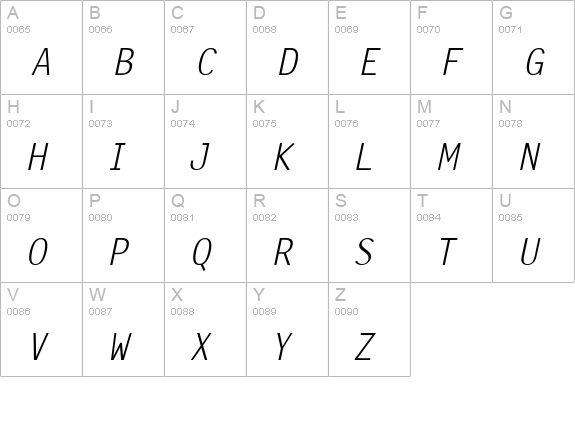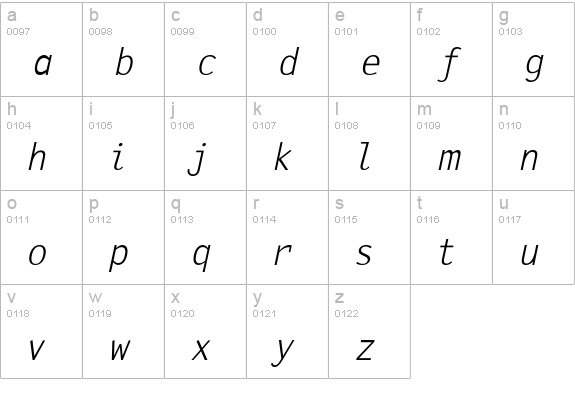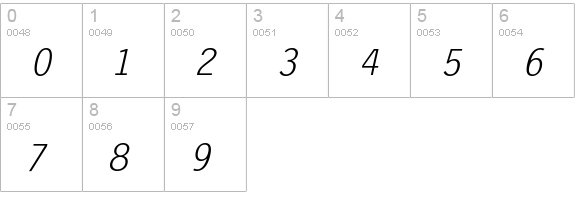
PFLetterGothicThree LightItalic Font Details
PFLetterGothicThree LightItalic is a modern and elegant font that exudes sophistication and style. The sleek design and slanted italics of this typeface make it perfect for adding a touch of class to any project. Whether you are creating invitations, business cards, or website designs, PFLetterGothicThree LightItalic is sure to make a statement. And the best part? This stunning font is available for free download at FontsMarket.com. So don't miss out on the opportunity to elevate your designs with PFLetterGothicThree LightItalic today!